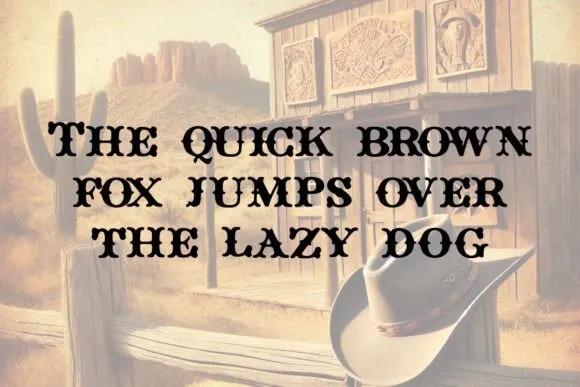
Yeehaw! Howdy Doodle Font is a rootin’ tootin’ font that adds a lot of personality to your designs. It is wacky, wonky, and full of Western charm.
This typeface combines old-timey saloon vibes with a playful twist thanks to its bouncy serifs and hand-drawn quirks.
Howdy Doodle Font is the ideal partner for your next creative adventure, whether you want to make a rodeo poster or give your branding a western flair.